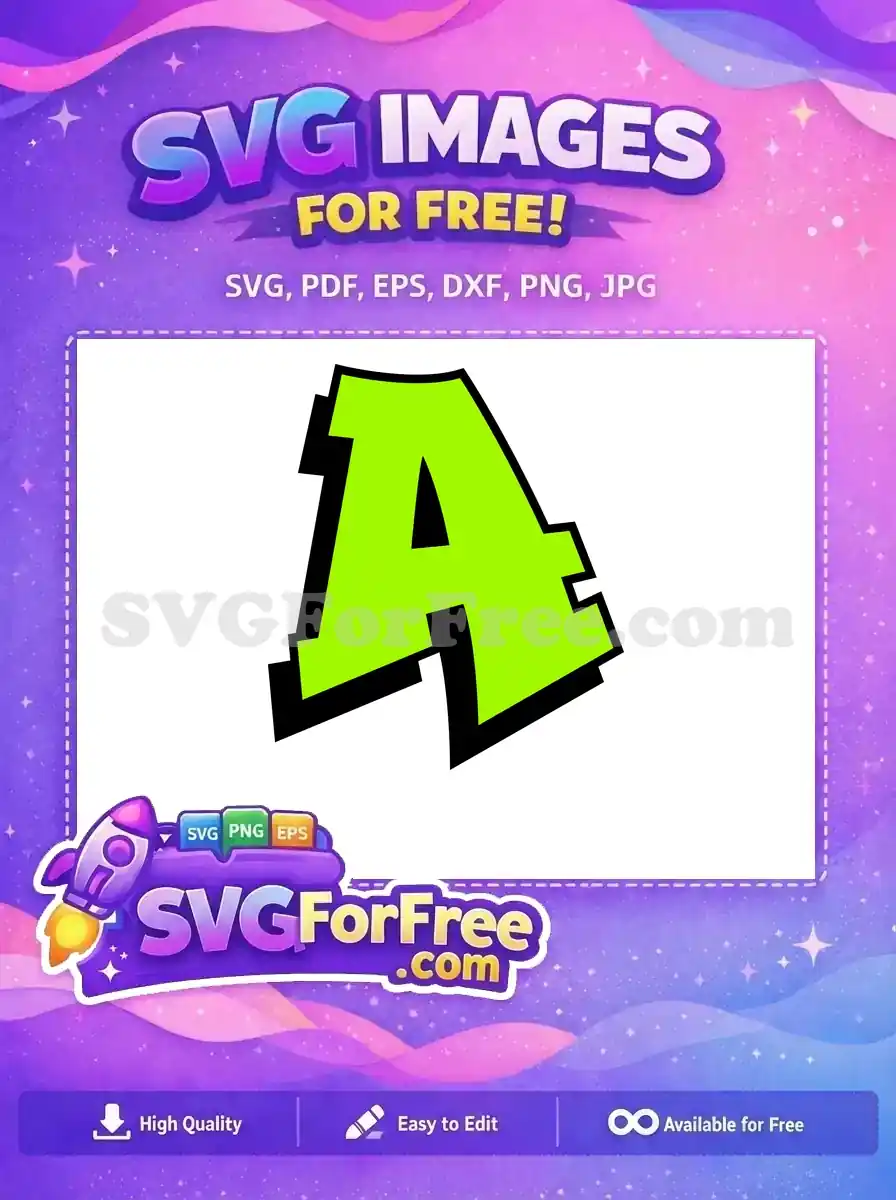
Free Lime Green Font Free Letter A Design Free SVG – Instant Download
A free graffiti-style letter A in bright lime green with a bold, black 3D shadow effect.
Free Lime Green Font Free Letter A Design Free SVG